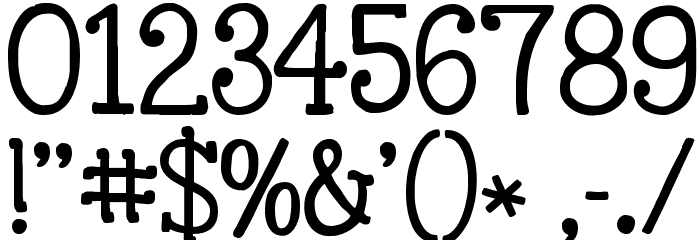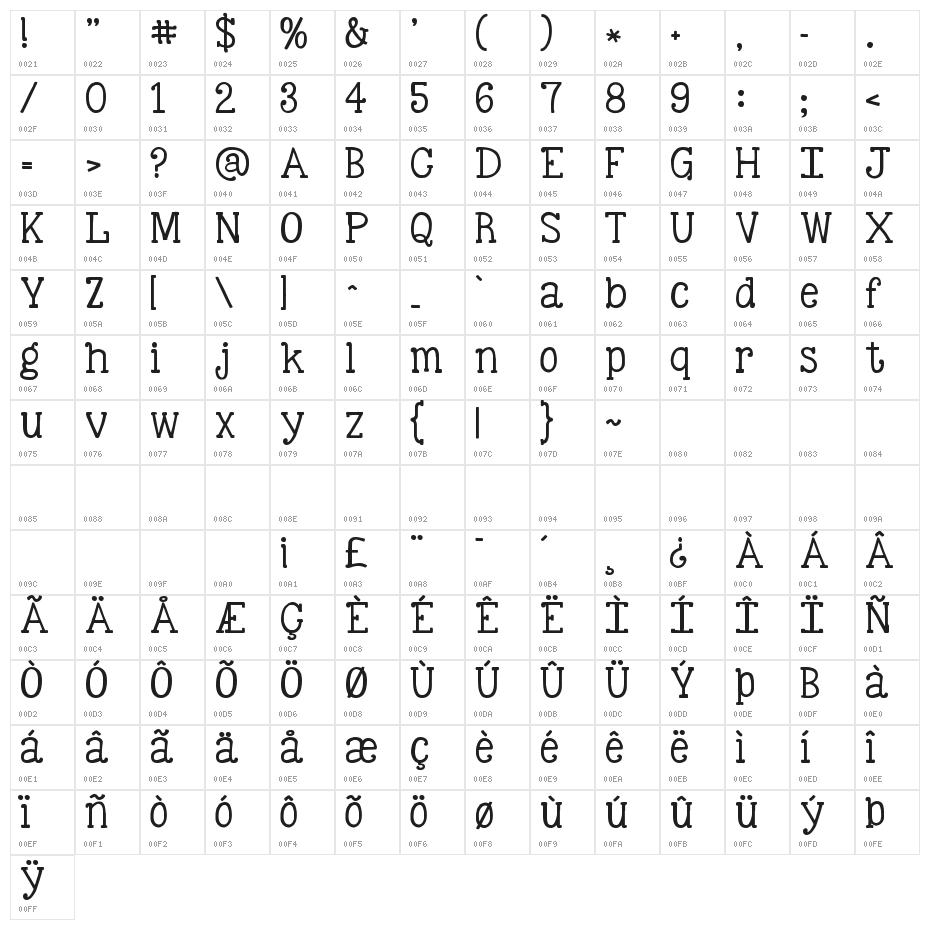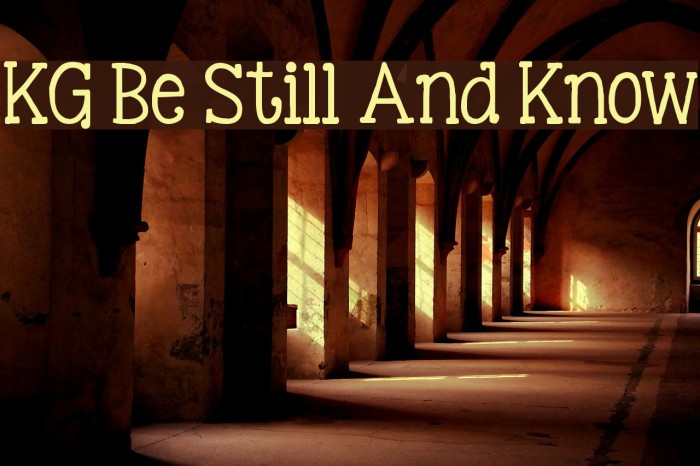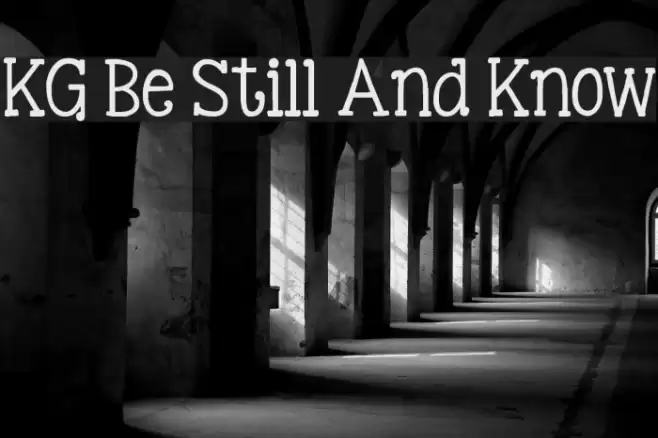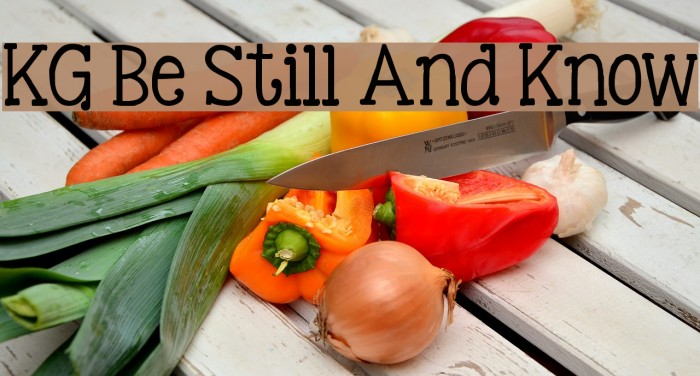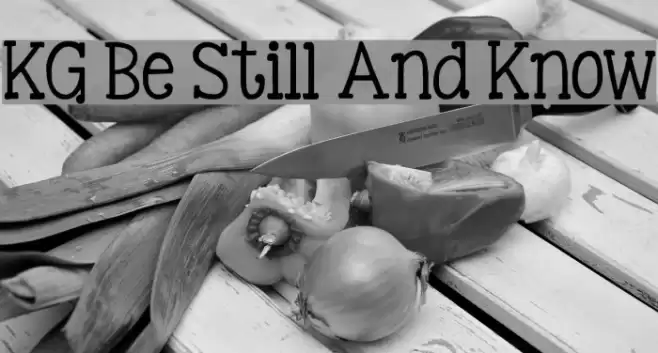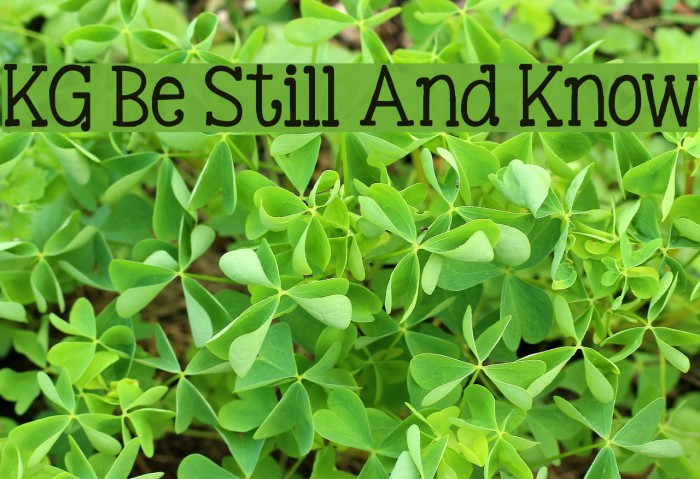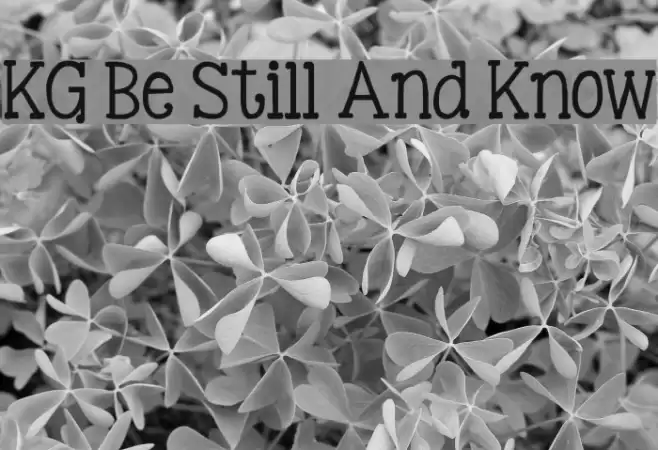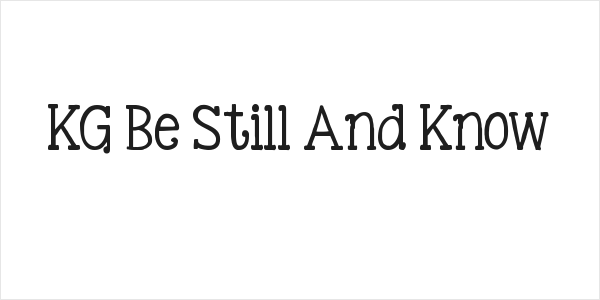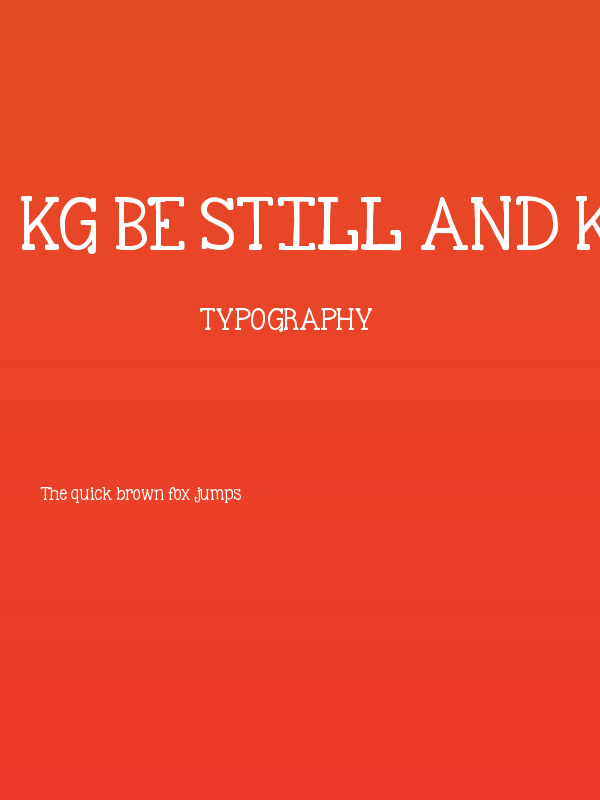
KG Be Still And Know Font
KG Be Still And Know Description
This font features a playful and slightly whimsical design, characterized by rounded edges and a hand-drawn appearance. The uppercase letters are bold and prominent, while the lowercase letters maintain a consistent style with a slightly smaller size. The numerals are clear and easy to read, with a similar rounded style. Special characters are included, maintaining the same playful aesthetic. The overall look is friendly and approachable, making it suitable for a variety of creative projects.